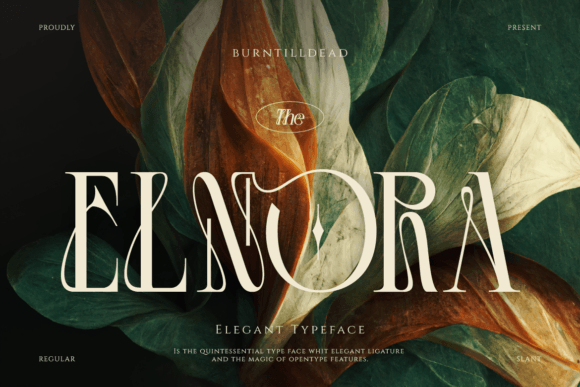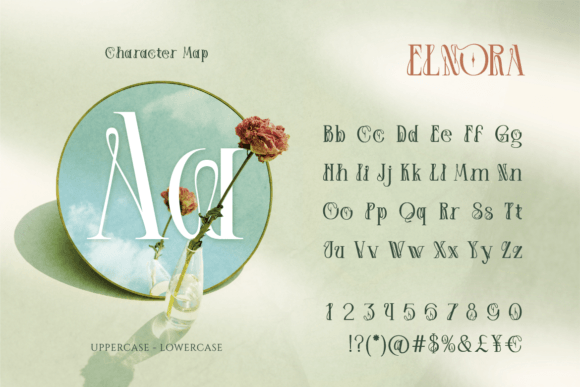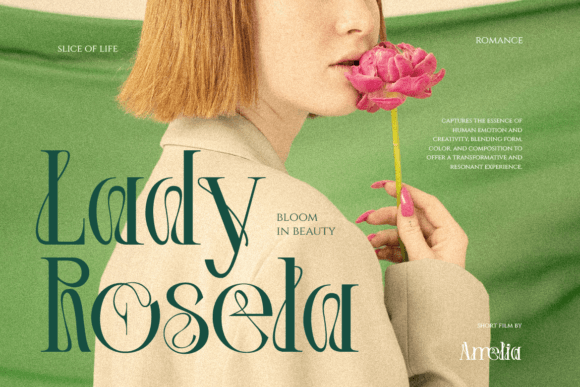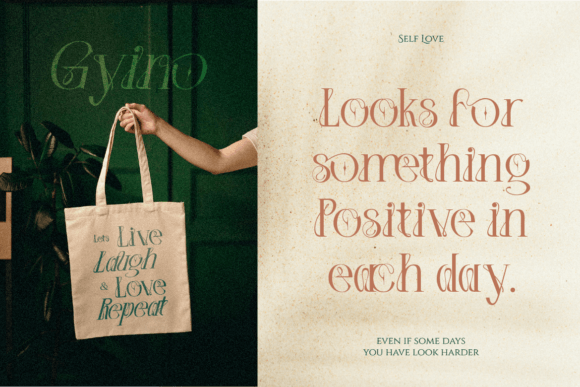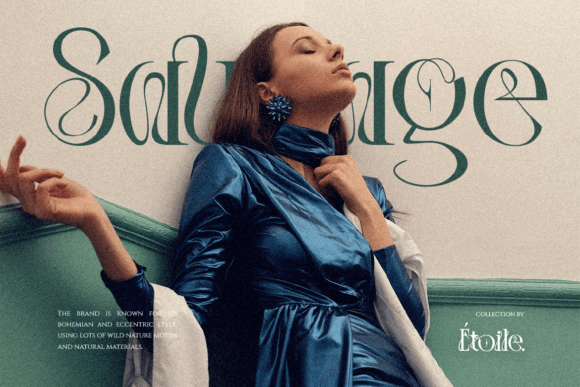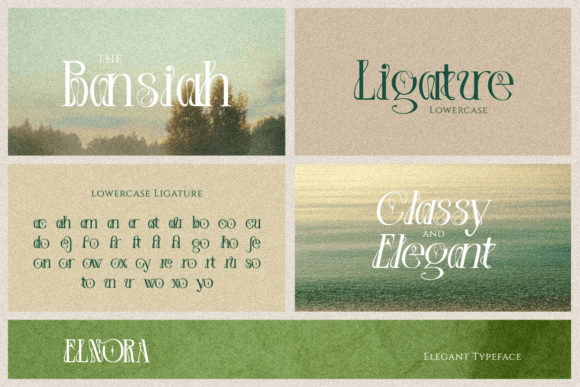
Introducing Elnora: The Epitome of Elegance and Uniqueness in Typography
In the world of typography, the right font can elevate a design from ordinary to extraordinary. For those seeking a typeface that embodies both elegance and uniqueness, look no further than Elnora. This stylish serif font is meticulously crafted with curved lines that form beautiful letters, perfect for adding a touch of classic beauty to modern aesthetics. Whether you’re working on branding, invitations, or editorial design, Elnora is the ideal choice for designers and crafters aiming to make a lasting impression.
The Harmony of Elegance and Uniqueness
Elnora’s design is centered around creating a harmonious blend of elegance and uniqueness. Each letter is carefully crafted to ensure that when combined, they form a cohesive and visually appealing text. The curved lines and serifs of Elnora add a level of sophistication that is hard to achieve with more straightforward typefaces. This font is not just about conveying information; it’s about making a statement. It’s about adding that extra layer of class and style to your design that sets it apart from the rest.
Perfect for Branding, Invitations, and Editorial Design
One of the standout features of Elnora is its versatility. It’s a font that can seamlessly transition across various design applications. For branding, Elnora offers a level of professionalism and elegance that can elevate a company’s visual identity. Logos, business cards, and letterheads designed with Elnora are sure to leave a lasting impression on clients and customers.
When it comes to invitations, Elnora adds a touch of sophistication and class. Whether it’s a wedding invitation, a birthday party invite, or a formal gala announcement, Elnora’s elegant lines and beautiful letters set the tone for an event that’s both memorable and stylish.
In editorial design, Elnora shines by bringing a sense of tradition and reliability to articles, magazines, and books. Its readability and classic aesthetic make it an excellent choice for body text, while its unique features ensure that headings and subheadings stand out, creating a visually appealing hierarchy of information.
Why Choose Elnora?
There are several reasons why Elnora should be your go-to typeface for your next design project:
- Elegance and Uniqueness: Elnora offers a perfect blend of elegance and uniqueness, making your designs stand out.
- Versatility: Suitable for a wide range of design applications, from branding and invitations to editorial design.
- Classic Aesthetic: Brings a touch of classic beauty to modern designs, making it perfect for those who appreciate timeless elegance.
- Readability: Despite its elegant and unique design, Elnora maintains high readability, making it suitable for both headings and body text.
Tips for Using Elnora Effectively
To get the most out of Elnora, consider the following tips:
- Pair with Simplicity: Elnora’s elegance shines best when paired with simple and clean design elements. Avoid clutter and let the font be the focal point.
- Experiment with Sizes: Play with different sizes to create a visual hierarchy. Elnora’s design ensures that it looks great in both large headings and smaller body text.
- Limit Your Palette: To maintain the classy feel of Elnora, stick to a limited color palette. Neutral colors like black, white, and grays work well, but feel free to add a pop of color to highlight important information.
| Author | Burntilldead |
Elnora is more than just a typeface; it’s a design statement. With its elegant serifs, curved lines, and unique character, it brings a level of sophistication and class to any design project. Whether you’re a professional designer or a crafter looking to add a personal touch to your creations, Elnora is an excellent choice. Its versatility, elegance, and readability make it perfect for a wide range of applications, from branding and invitations to editorial design. Discover the beauty of Elnora and elevate your designs to new heights of elegance and uniqueness.